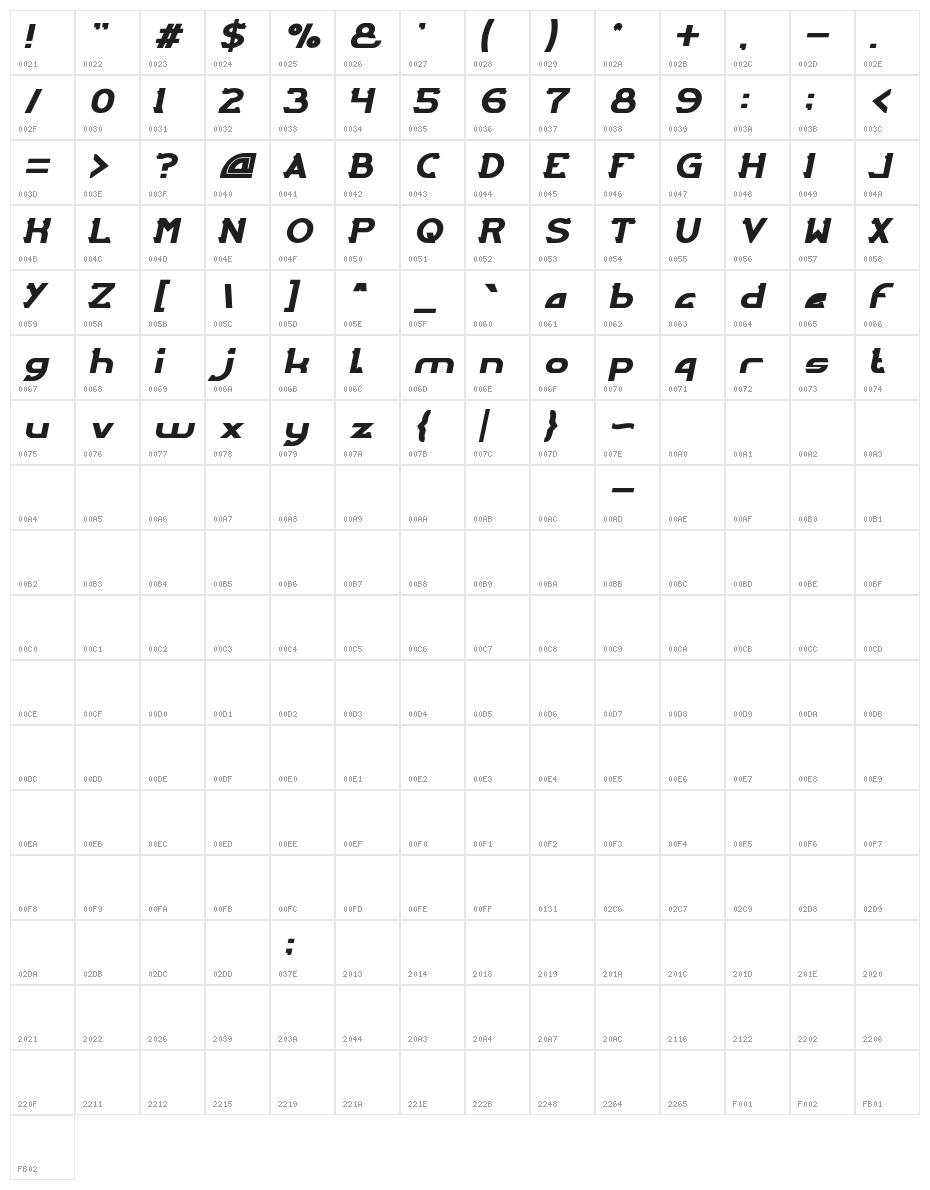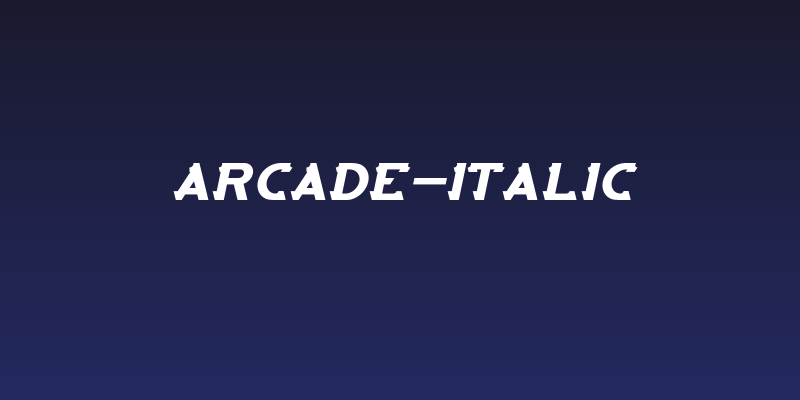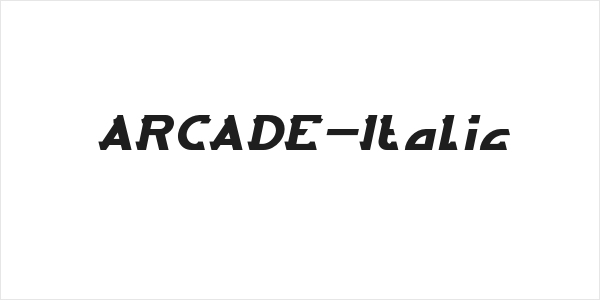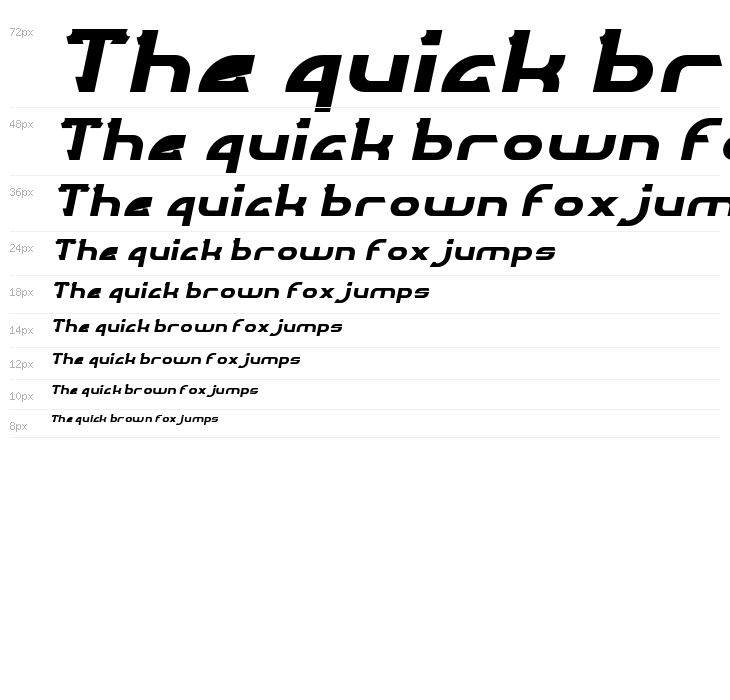
ARCADE-Italic Font
ARCADE-Italic Description
This font features a bold and dynamic style with a distinct italic slant, reminiscent of retro arcade aesthetics. The characters are designed with sharp angles and a futuristic flair, giving them a sense of motion and energy. The uppercase and lowercase letters maintain a consistent style, with unique cuts and edges that add to the overall visual impact. Numbers and special characters are equally stylized, ensuring a cohesive look across all text elements. This font is ideal for projects that require a bold, eye-catching typeface with a touch of nostalgia.
ARCADE-ITALIC UPPERCASE
ARCADE-ITALIC LOWERCASE
ARCADE-ITALIC OTHER CHARS
| Overall Style | Retro, Futuristic |
| Proposed Projects | Perfect for video game graphics, retro-themed posters, and branding for tech or entertainment industries. |